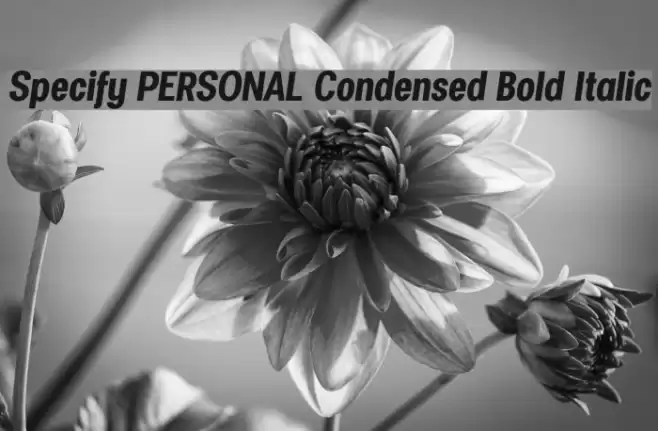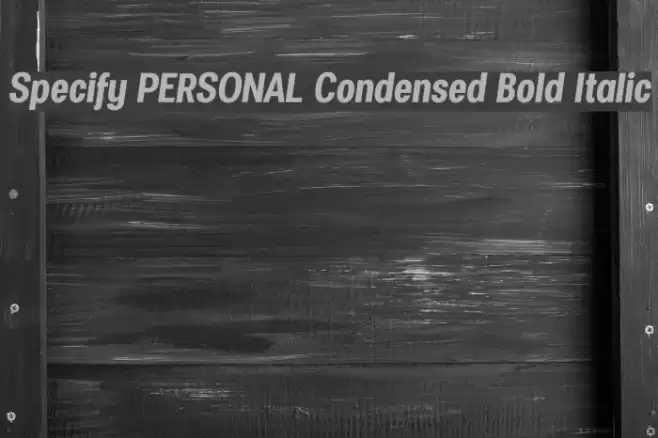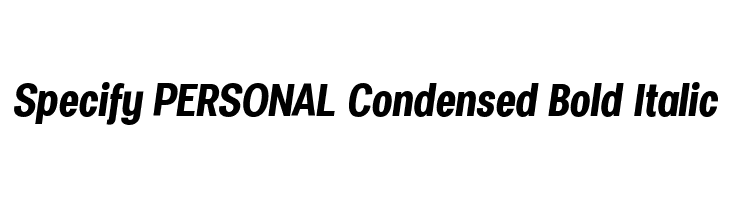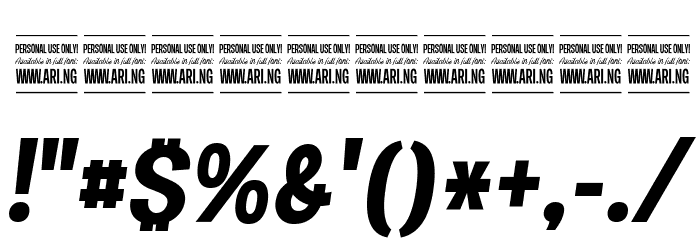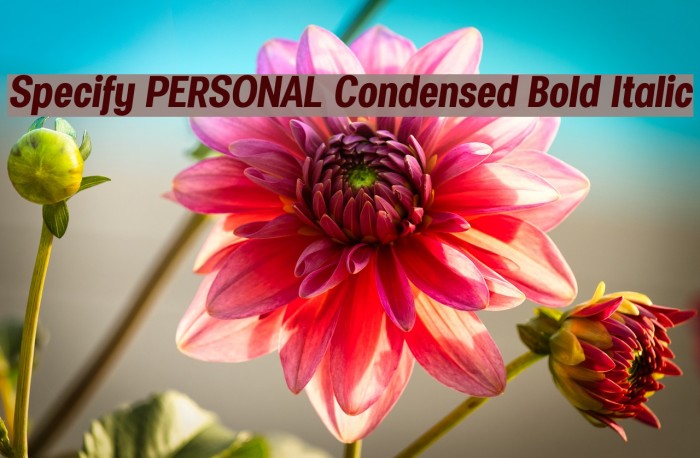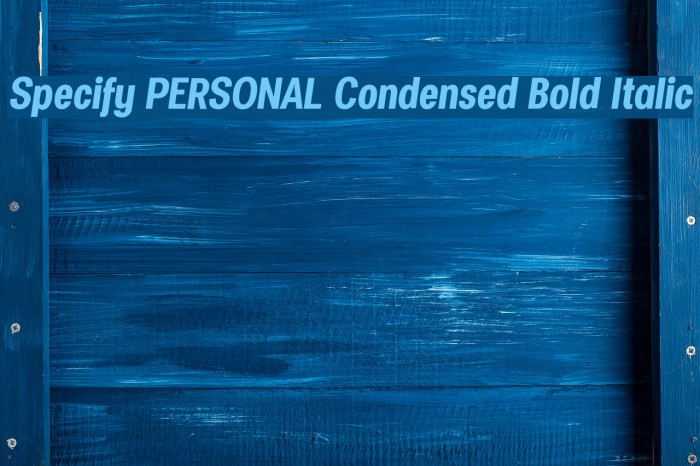
Specify PERSONAL Condensed Bold Italic Font
Specify PERSONAL Condensed Bold Italic Description
This font features a bold and italicized style with a condensed width, making it highly impactful and attention-grabbing. The uppercase and lowercase letters are designed with a strong presence, characterized by thick strokes and a slight slant, which adds dynamism and energy. The numerals and special characters maintain this bold and italicized appearance, ensuring consistency across all glyphs. The condensed nature of the font allows for efficient use of space, making it suitable for headlines and titles where space is limited but impact is necessary.
A bold, italicized, and condensed font ideal for impactful headlines from Uncategorized fonts.
- Proposed Projects: This font is perfect for advertising campaigns, poster designs, magazine covers, and branding projects where a strong visual impact is required.